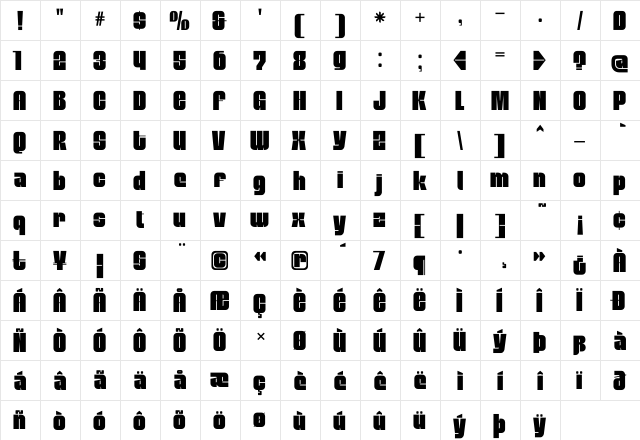
MobleySans Regular
Design Context for MobleySans Typeface
MobleySans takes a measured approach to typography — its balanced proportions and neutral character make it a reliable workhorse for both digital and print work.
Pro Tip: Pair MobleySans with a font of contrasting weight or personality to build a more expressive typographic hierarchy.